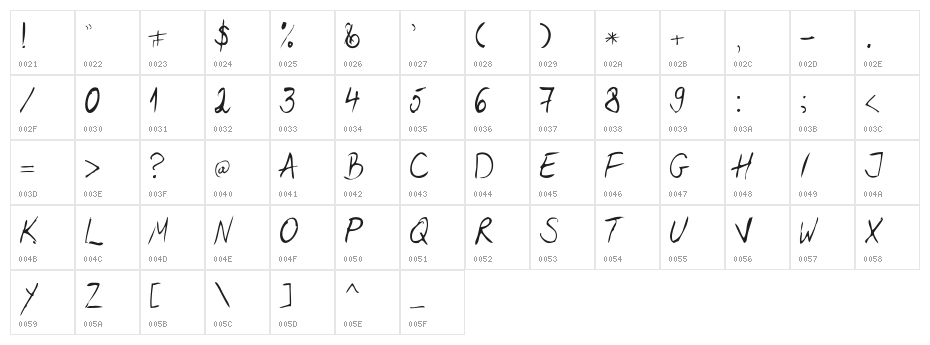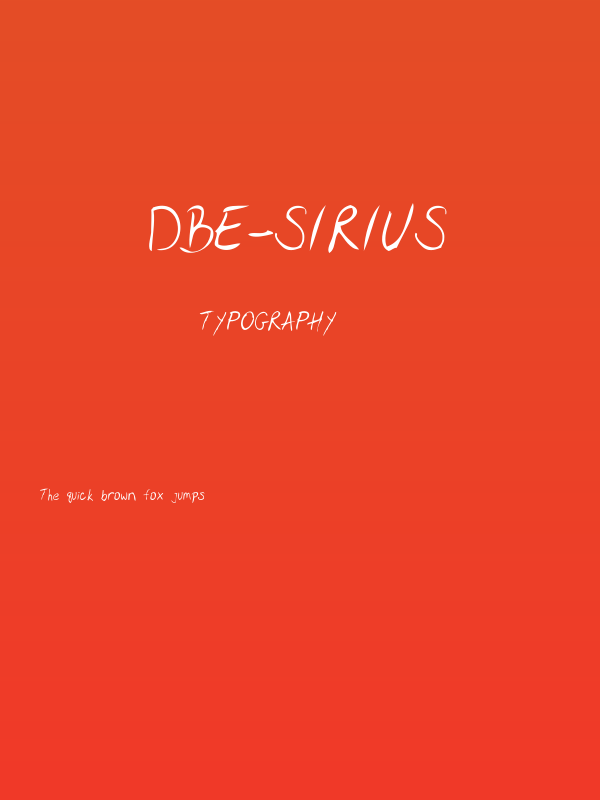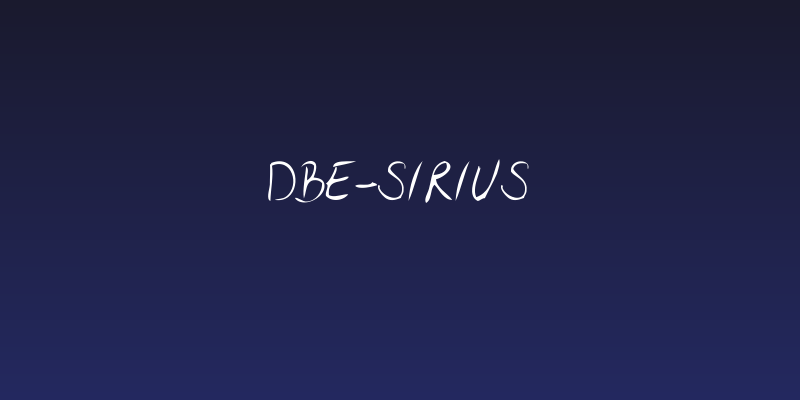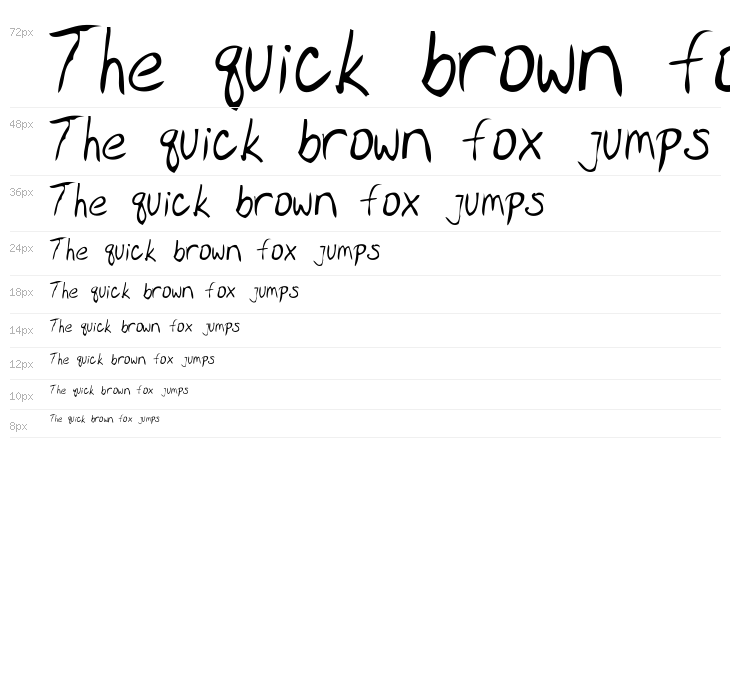
DBE-Sirius Font
DBE-Sirius Description
This font features a dynamic and lively handwritten style, characterized by its fluid and irregular strokes. The letters have a playful and informal appearance, with varying heights and angles that give it a unique personality. The uppercase letters are bold and slightly slanted, while the lowercase letters maintain a consistent flow, adding to the overall casual aesthetic. The numerals and special characters follow the same energetic style, making the font versatile for creative projects. Its distinctive look is perfect for designs that require a personal touch or a sense of spontaneity.
| Proposed Projects | Ideal for greeting cards, invitations, personal branding, and creative posters. |